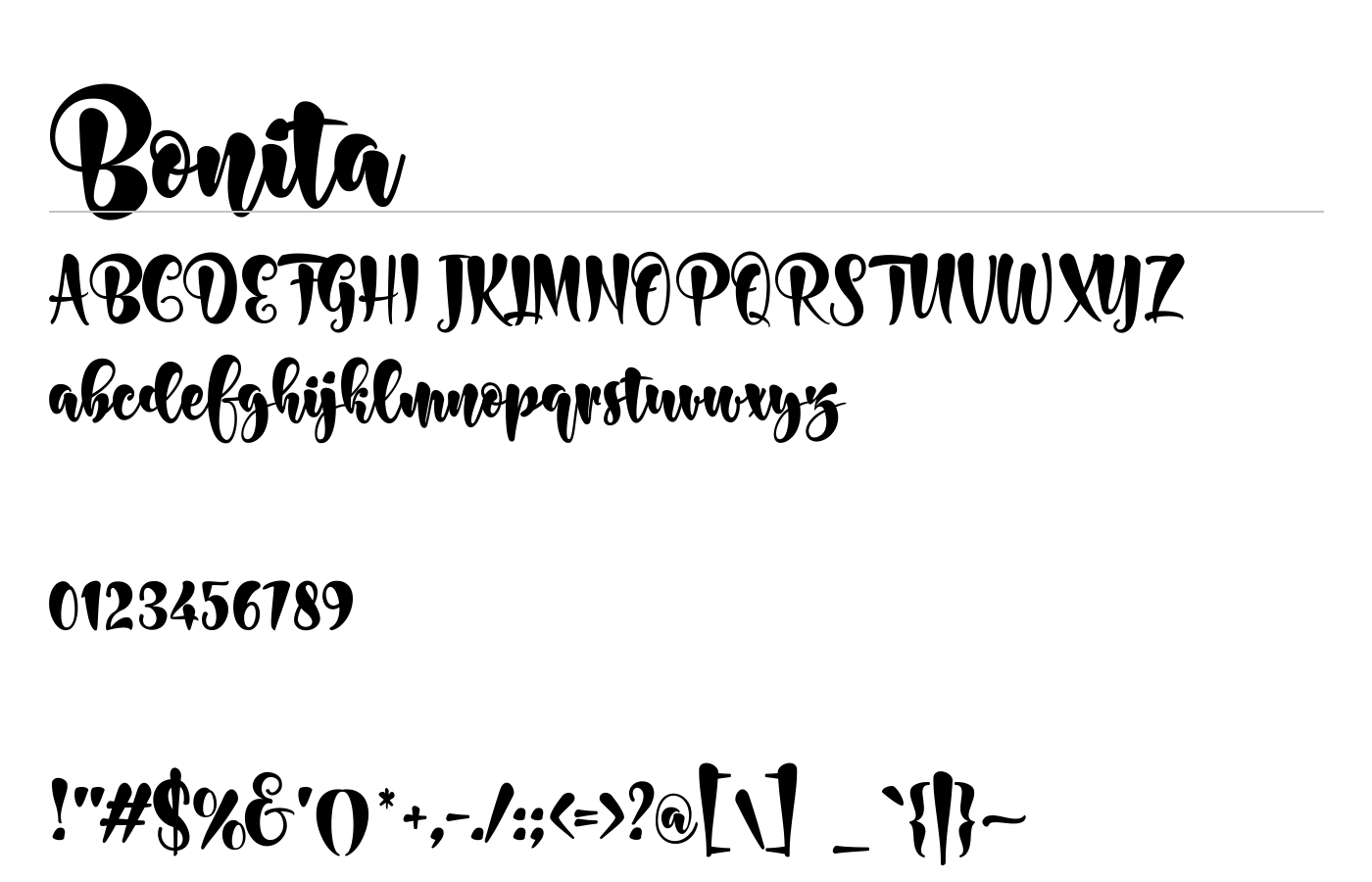
Bonita Font is a playful and bold script typeface with a lively, handwritten feel. Its thick strokes and smooth curves give it a friendly, approachable style perfect for branding, invitations, or eye-catching headlines. This font works well in designs that want to convey warmth and personality.
Bonita Font
About Bonita Font